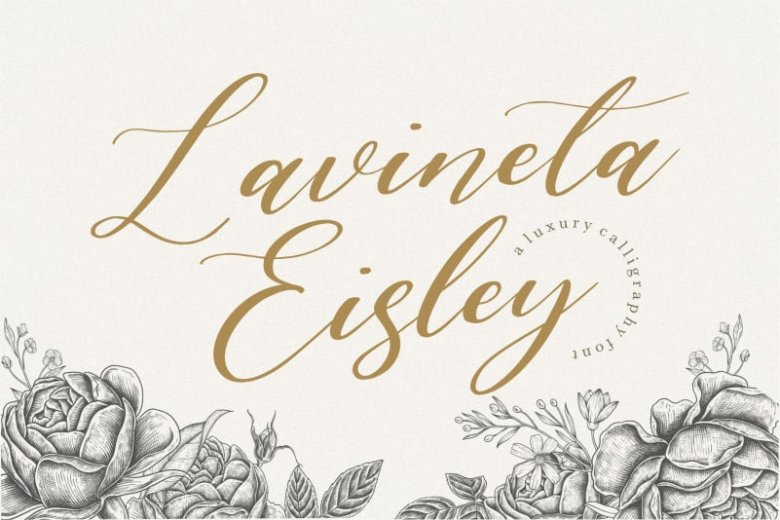
Lavineta Eisley Luxury Calligraphy Font
Lavineta Eisley is a Luxury Calligraphy Font, It is perfect for product packaging, branding project, magazine, social media, wedding, or just used to express words above the background.